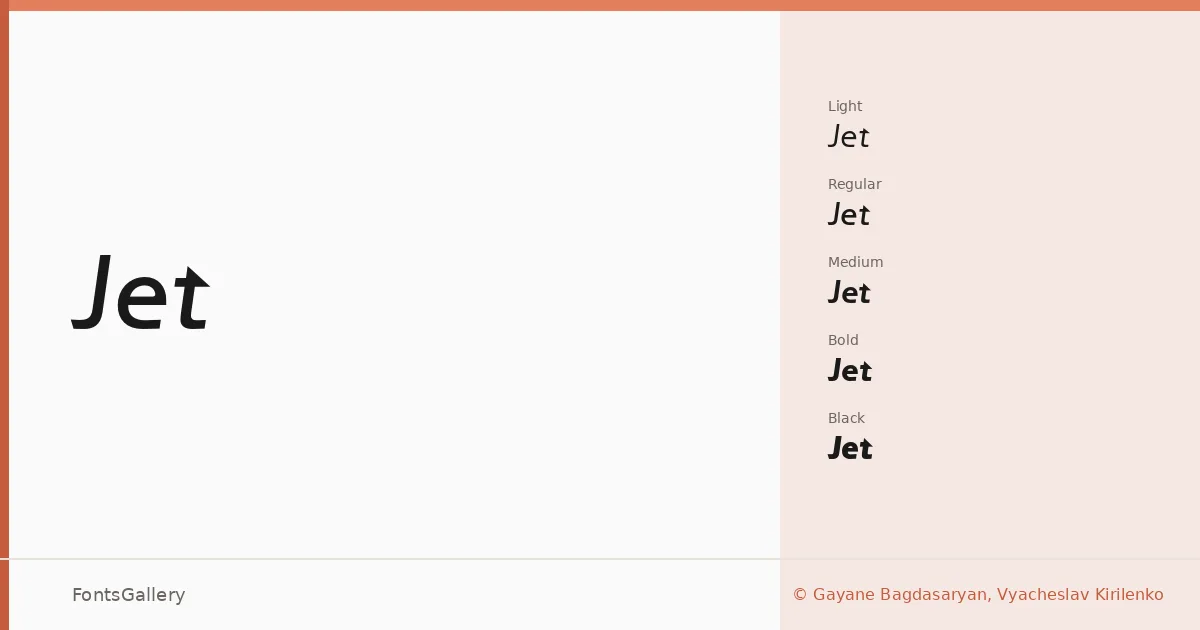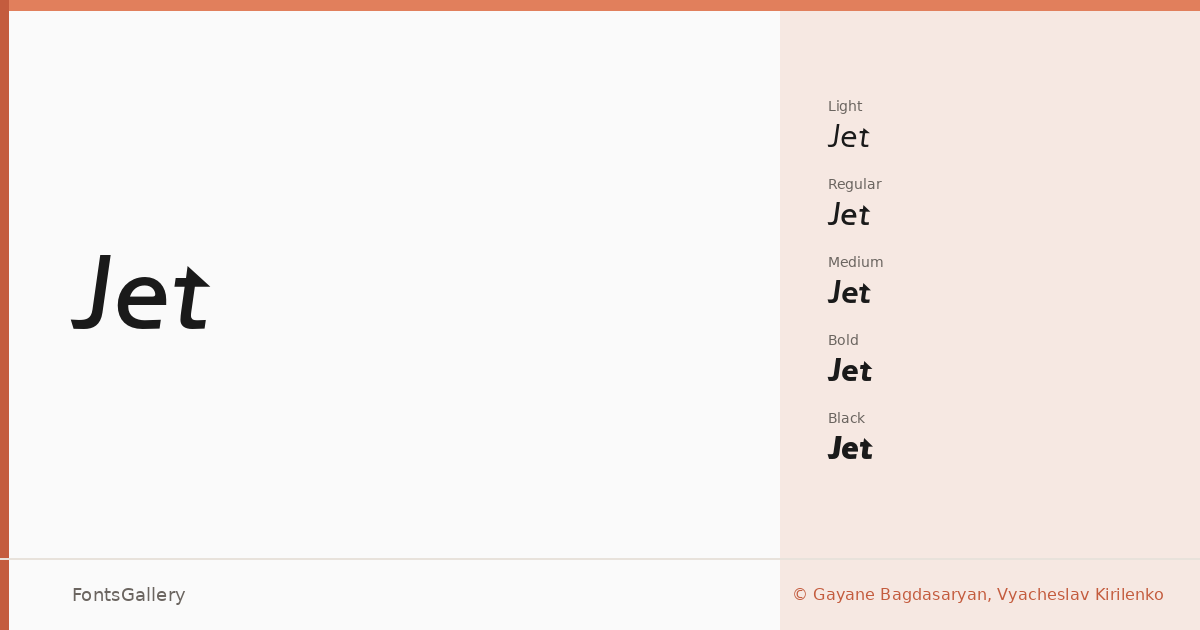
About Jet Font
There is a controlled tension to this sans serif — strokes that feel pressurized, as if the letterforms are being held just at the edge of stillness. Designed by Gayane Bagdasaryan and Vyacheslav Kirilenko at Brownfox, the family covers both Latin and Cyrillic scripts, giving it real utility across multilingual work.
The family runs from Light through Regular, Medium, Bold, and Black — a tight, purposeful range that rewards confident typographic decisions rather than hedging. The overall mood is minimal and modern with a professional edge: even the lighter weights carry a structural authority that keeps things from feeling delicate. Available in OTF, the cuts are built for high-impact settings where clarity and weight matter equally.
The heavier weights are natural choices for headlines, magazine covers, and branding systems where the type needs to hold its ground at scale; the lighter cuts clean up nicely for presentation decks and logo lockups that need breathing room. For contrast pairing, the family has been matched with Anglecia Pro, Ballmain, 321 Impact, AQUA, and Batoshi — each offering a different counterpoint depending on whether you want serif warmth, display drama, or graphic punch.